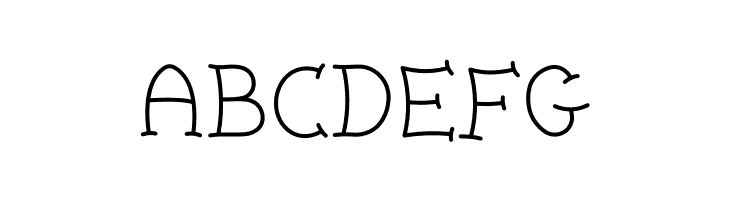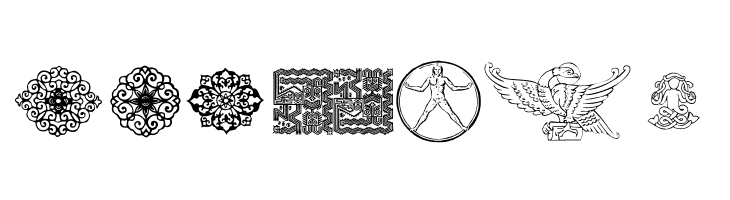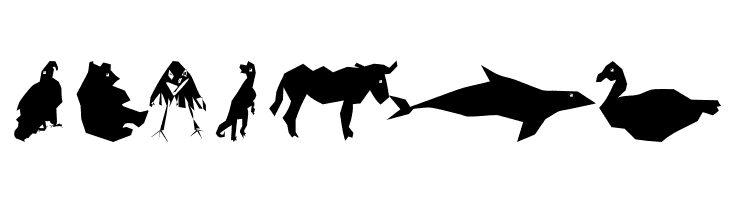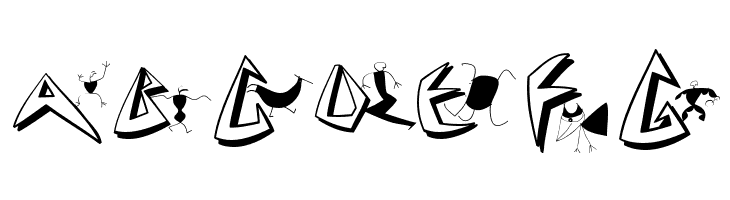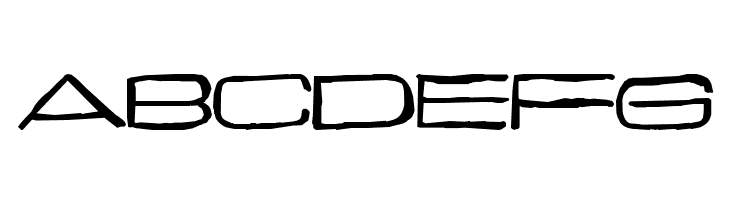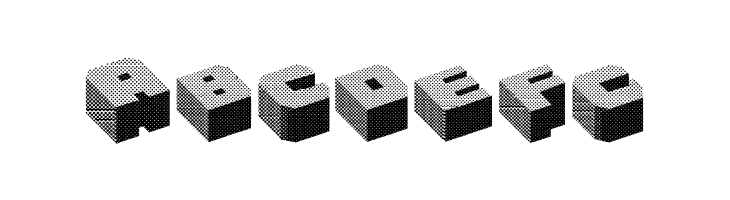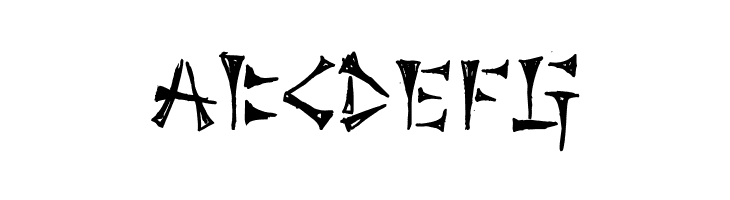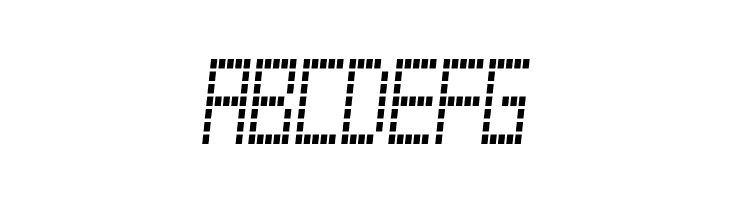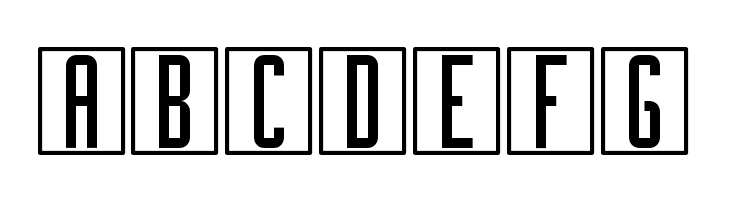
A geometric, angular font with a futuristic, digital display style.
A bold, geometric font with rounded edges and a modern style.
A bold, distressed font with a rough, textured appearance, perfect for vintage or industrial designs.
A bold, high-contrast font with geometric shapes and dramatic serifs.
A bold, dripping font with a spooky, horror-themed style.
A pixelated, italic font with a digital, futuristic style.
A bold, boxed font with geometric, grid-like characters.
A bold, decorative font with artistic flair and dynamic letterforms.
A pixelated, geometric font with a retro digital vibe.
A pixelated, monospaced font with a retro digital aesthetic.
Cubist animal silhouettes form each character in a decorative display style.
A bold, geometric font with a blocky, futuristic style.
A bold, 3D cube font with a playful and modern geometric style.
A dot-matrix style font with a digital, LED display appearance.
A whimsical, hand-drawn font with irregular, dynamic strokes.
An ornate, decorative font with intricate geometric details and a modern flair.
A geometric, futuristic font with sharp angles and a structured design.
A diverse icon set featuring global cultural and symbolic motifs.
A playful, decorative font featuring stick figures interacting with bold, angular letters.
A bold, ancient-inspired font with sharp, angular characters.
A bold, angular font with sharp, jagged edges and a geometric style.
A medical-themed pictogram dingbat font with bold, clear healthcare icons.
Cartoonish sci-fi dingbat font with aliens, robots, and spaceships.
A whimsical font with playful curls and consistent stroke width.
A hand-drawn, artistic font with elongated, narrow characters and a uniform stroke width.
A bold, expressive script font with a brush-like texture and dynamic strokes.
A bold, expressive cursive font with fluid, dynamic strokes.
Abstract, organic font with wavy lines and playful forms.